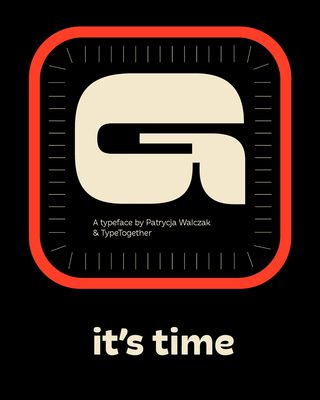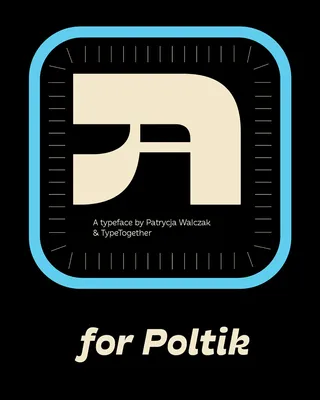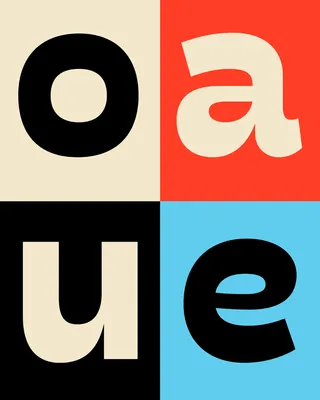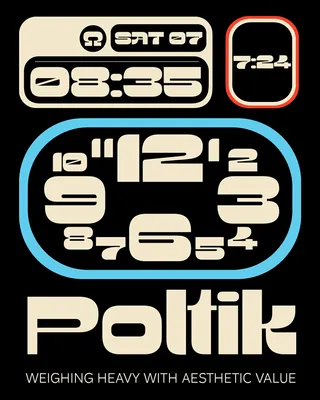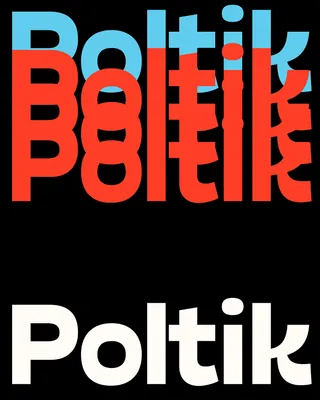
Poltik unleashed: retro vibes and modern versatility
Patrycja Walczak’s Poltik family has just been released and we’re excited to see its novel look put to eye-catching use.
We are proud to announce Patrycja Walczak, the 2023 Gerard Unger Scholarship winner, has released Poltik as her first family, and it has a lot to offer.
Poltik is a two-toned family with a reverse contrast text and eye-catching headliner for a stylish, expressive presence. Both act as statement pieces, weighing heavy with aesthetic value, reliability, and an invitation to imbue type with emotion again.
Poltik is packed with two display styles, ten text styles (five upright and five italic), full Latin support covering over 200 languages, some fun ornaments (arrows, circled numerals, shapes, and manicules), and is also available as two variable fonts.
Patrycja Walczak is a typeface and graphic designer from Poland. She graduated in 2024 with a master’s degree in graphic design from the Magdalena Abakanowicz University of the Arts in Poznań. In 2022, she participated in the Erasmus+ programme at the National College of Art and Design in Dublin, Ireland. Inspired by 1970s industrial design, Patrycja created Poltik, a display typeface that was awarded the 2023 Gerard Unger Scholarship and subsequently expanded into a full family. Currently, Patrycja is a junior type designer at Type Together.
While her primary focus is type design, she also explores the role of typography in branding and communication, along with various other areas of design to fuel her curiosity and keep her creatively engaged. Patrycja enjoys working with pottery in her free time.